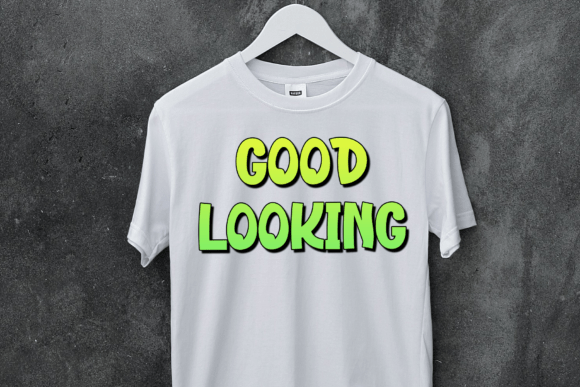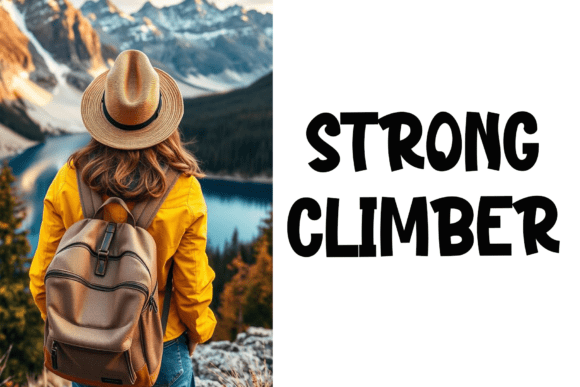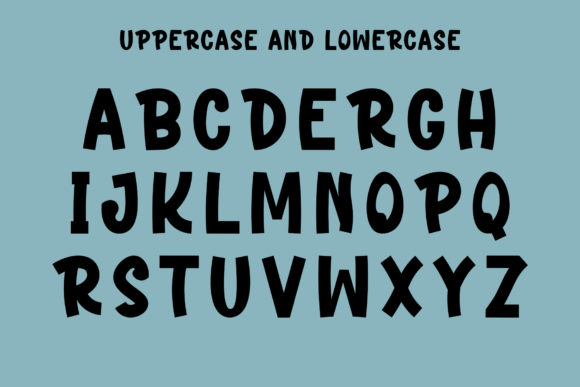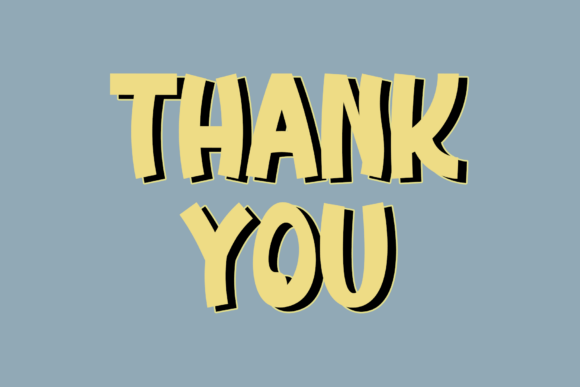
The Power of Black Shadow Font: Elevate Your Designs with Elegance
I’ll never forget the time I was working on a luxury branding project for a high-end jewelry client. I had spent hours perfecting the logo design, but something felt off. The font I had chosen just wasn’t delivering the level of sophistication and glamour that the brand required. That’s when I stumbled upon Black Shadow Font, a striking modern handwritten font that would change the game for my design.
An Honest Review of Black Shadow Font
- ✨ Generous weight: Black Shadow Font has a bold elegance that makes it perfect for statement logos, personal branding, and upscale packaging.
- ✅ Soft curves: The font’s smooth curves add a touch of sophistication and polish to any design.
- 💫 Handcrafted touch: Black Shadow Font has a unique, handcrafted feel that sets it apart from more generic fonts.
While Black Shadow Font is an amazing addition to any design toolkit, there are a few things to keep in mind:
- 🤔 Legibility at small sizes: Due to its bold weight, Black Shadow Font can become difficult to read at very small sizes. Make sure to test it at different sizes to ensure it works for your specific project.
- ⚠️ Limited use cases: While Black Shadow Font is perfect for luxury branding and high-end designs, it may not be the best fit for more playful or casual projects.
- Experiment with OpenType features, such as Stylistic Alternates and Glyphs, to add more personality to your text.
- Explore OpenType features, such as Swashes and Ligatures, to add more flair to your text.
The Story Behind Black Shadow Font
Black Shadow Font was designed with the goal of creating a modern, elegant font that would add a touch of sophistication to any design. Inspired by the world of luxury branding and high-end fashion, the font’s creator aimed to craft a font that would be both bold and refined.
| Font Name | Black Shadow Font |
| Author | Creatype Designer |
Q: What is Black Shadow Font best used for?
A: Black Shadow Font is ideal for luxury branding, high-end packaging, and upscale designs where a bold, elegant font is needed.